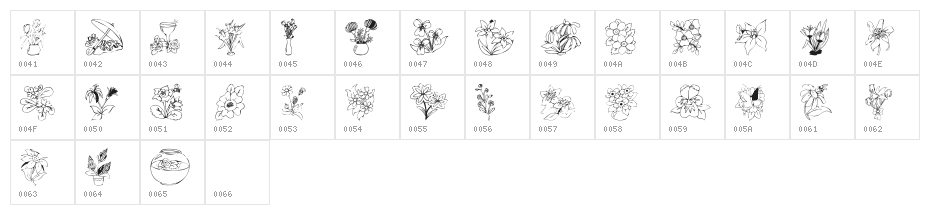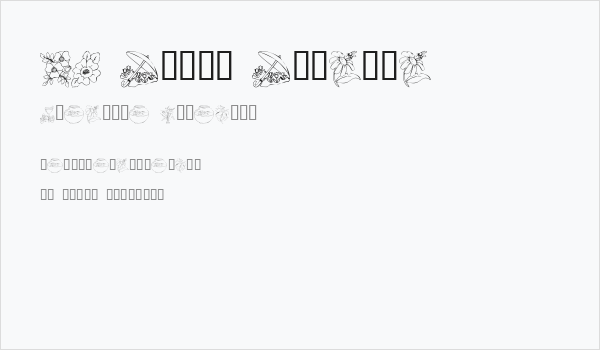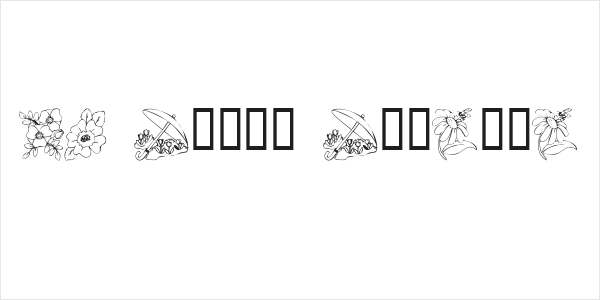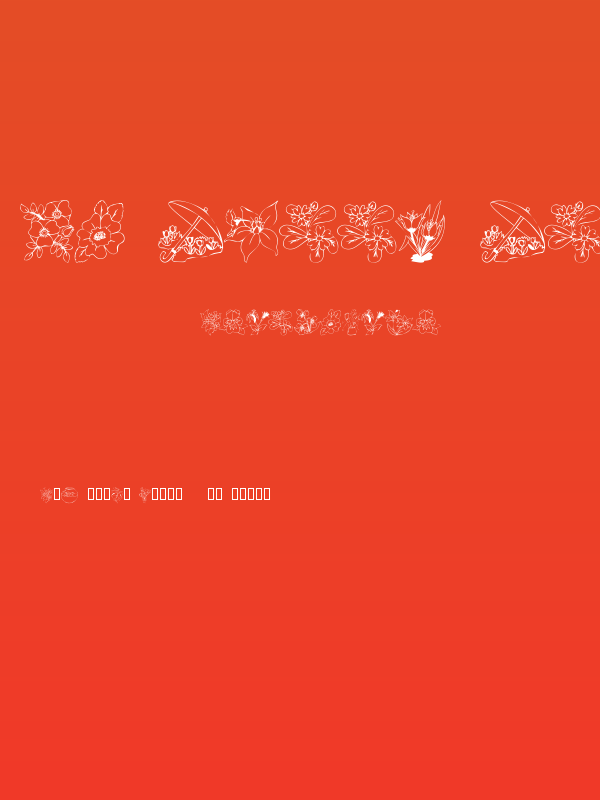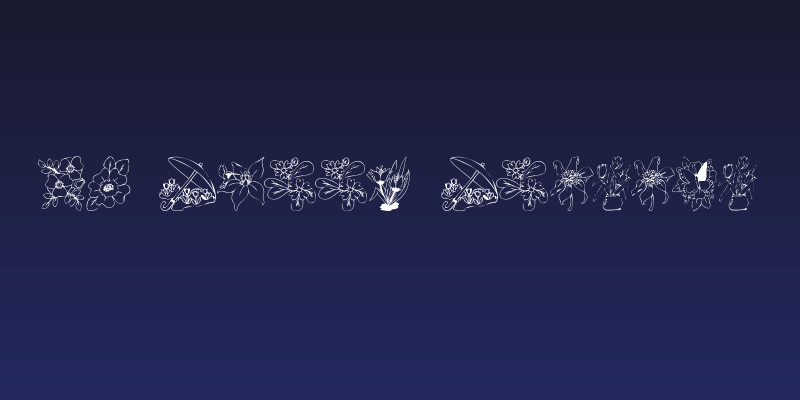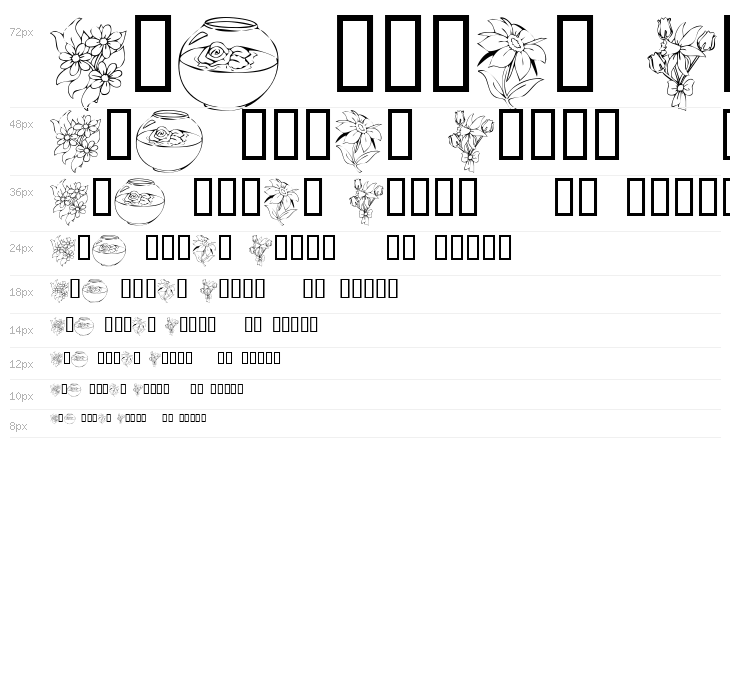
KR Bloom Bonanza Font
KR Bloom Bonanza Description
A decorative dingbat font featuring detailed, hand-drawn floral and botanical illustrations, each glyph representing a unique flower arrangement or plant in a sketch style. The designs are intricate, organic, and have a whimsical, artistic feel, suitable for embellishing creative projects.
Overall StyleDecorative, Hand-drawn, Artistic
Use CaseDecorative elements, Illustrative accents, Non-textual glyphs
Proposed ProjectsGreeting cards, wedding invitations, scrapbooking, decorative borders, craft projects, stationery, and digital artwork.